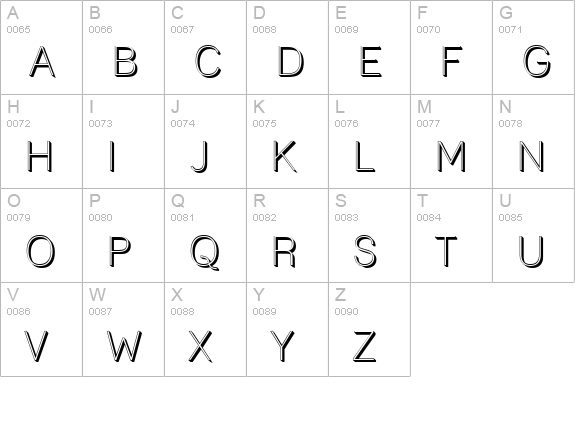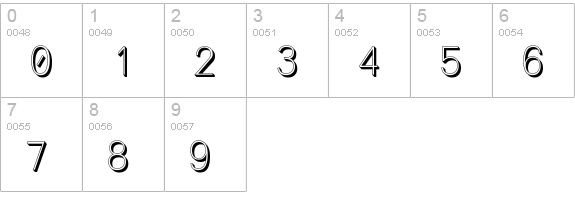
Lane Posh Light Font Details
Lane Posh Light is a refined, elegant variant in the Lane typeface family \xE2\x80\x94 well suited to elegant body text, refined sub-headings, and luxury branding.
Lane Posh Light font is a modern and elegant typeface that exudes sophistication and style. With its clean lines and delicate curves, this font is perfect for adding a touch of refinement to any design project. Featuring a light weight, Lane Posh Light font is versatile and easily legible, making it suitable for a wide range of applications including branding, advertising, editorial design, and more. Its subtle and graceful appearance adds a sense of luxury and exclusivity to any design. What sets Lane Posh Light font apart is that it is freely available to download at FontsMarket.com. This means that you can enhance your creative projects without any additional cost. Whether you are a professional designer or a hobbyist, this font is a valuable addition to your typography collection. With Lane Posh Light font, you can effortlessly create stunning layouts and beautifully crafted typography that captivate your audience. Its well-balanced proportions and timeless aesthetic make it a perfect choice for both digital and print mediums. So why wait? Download Lane Posh Light font today from FontsMarket.com and elevate your designs with its refined elegance and professional appeal.